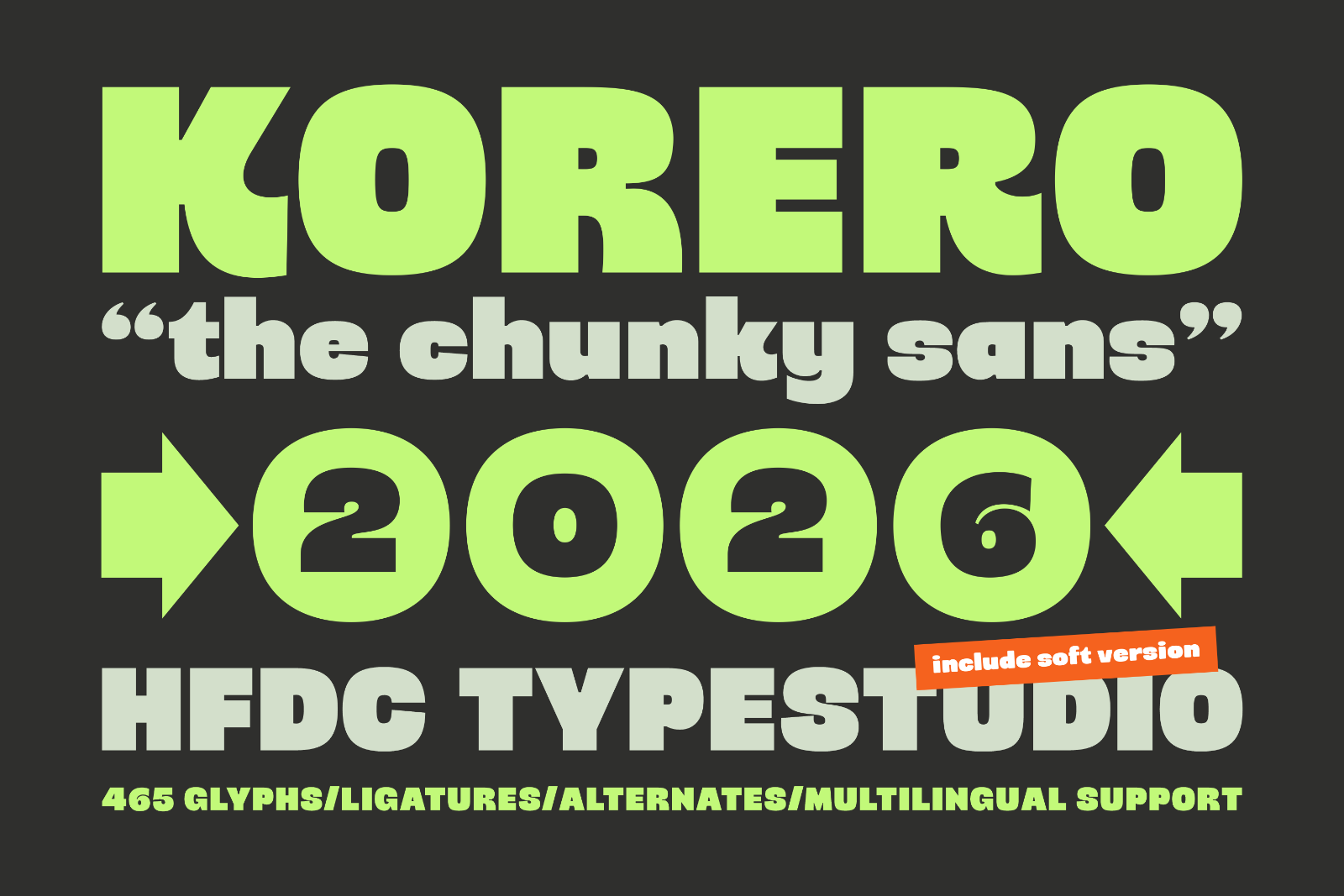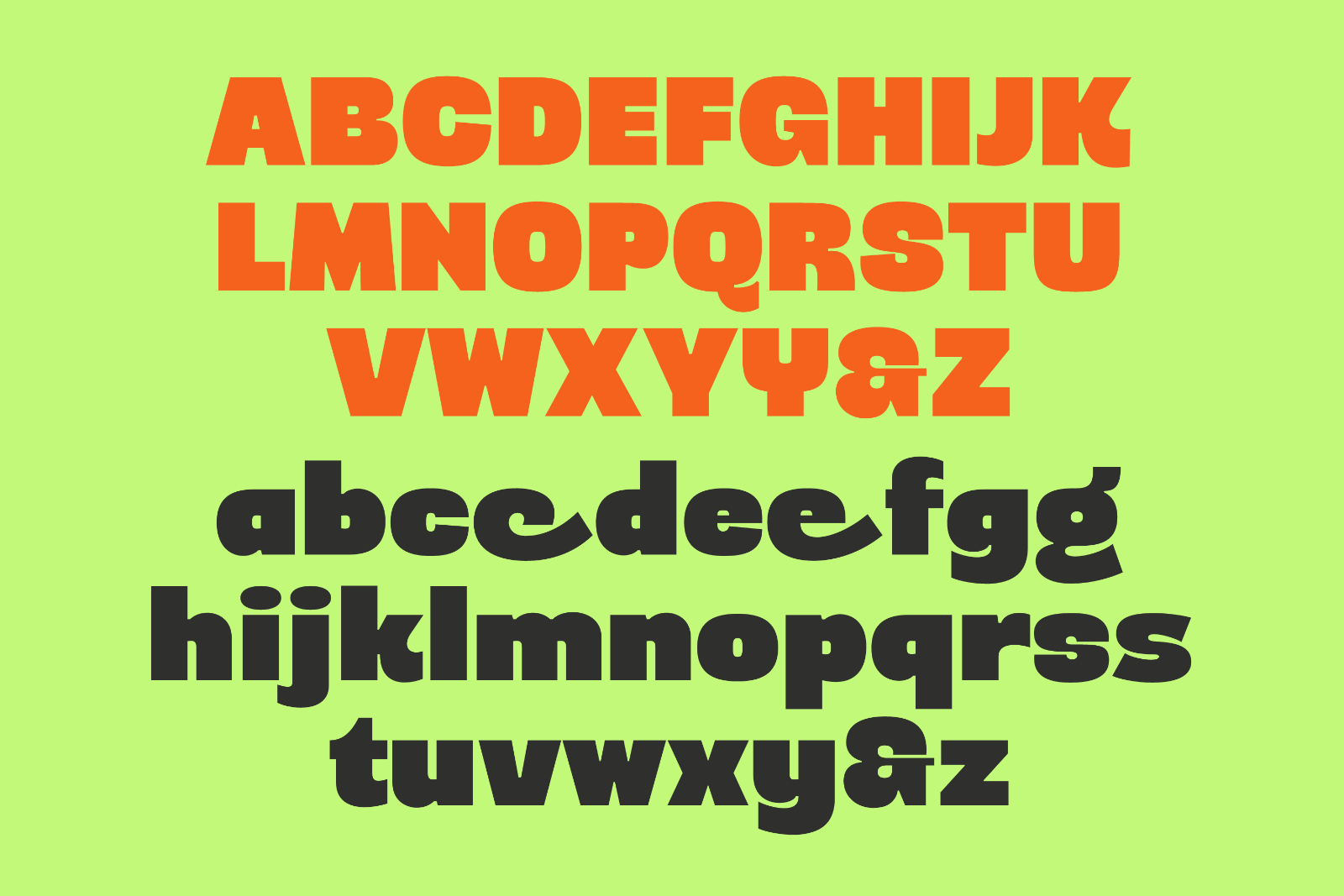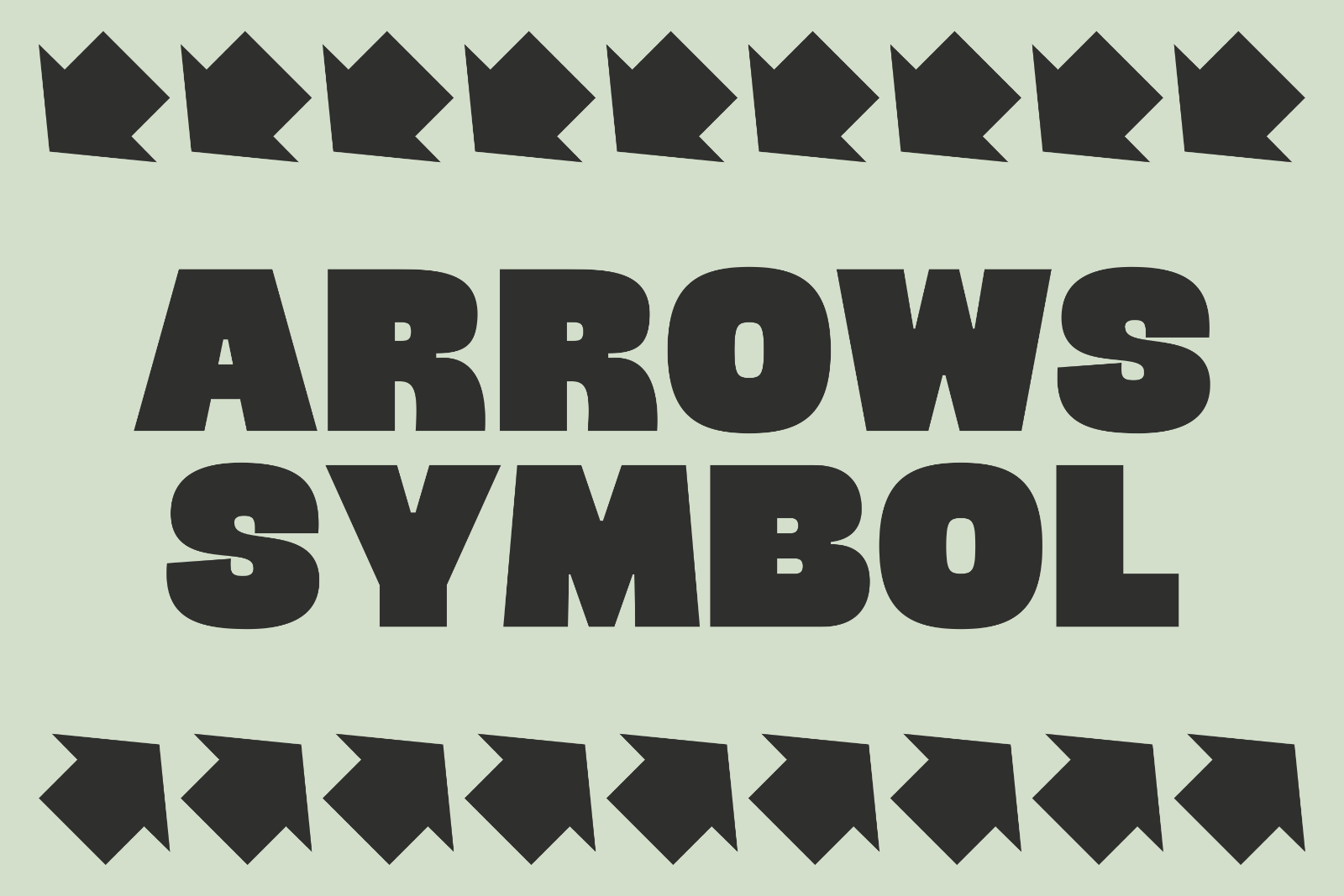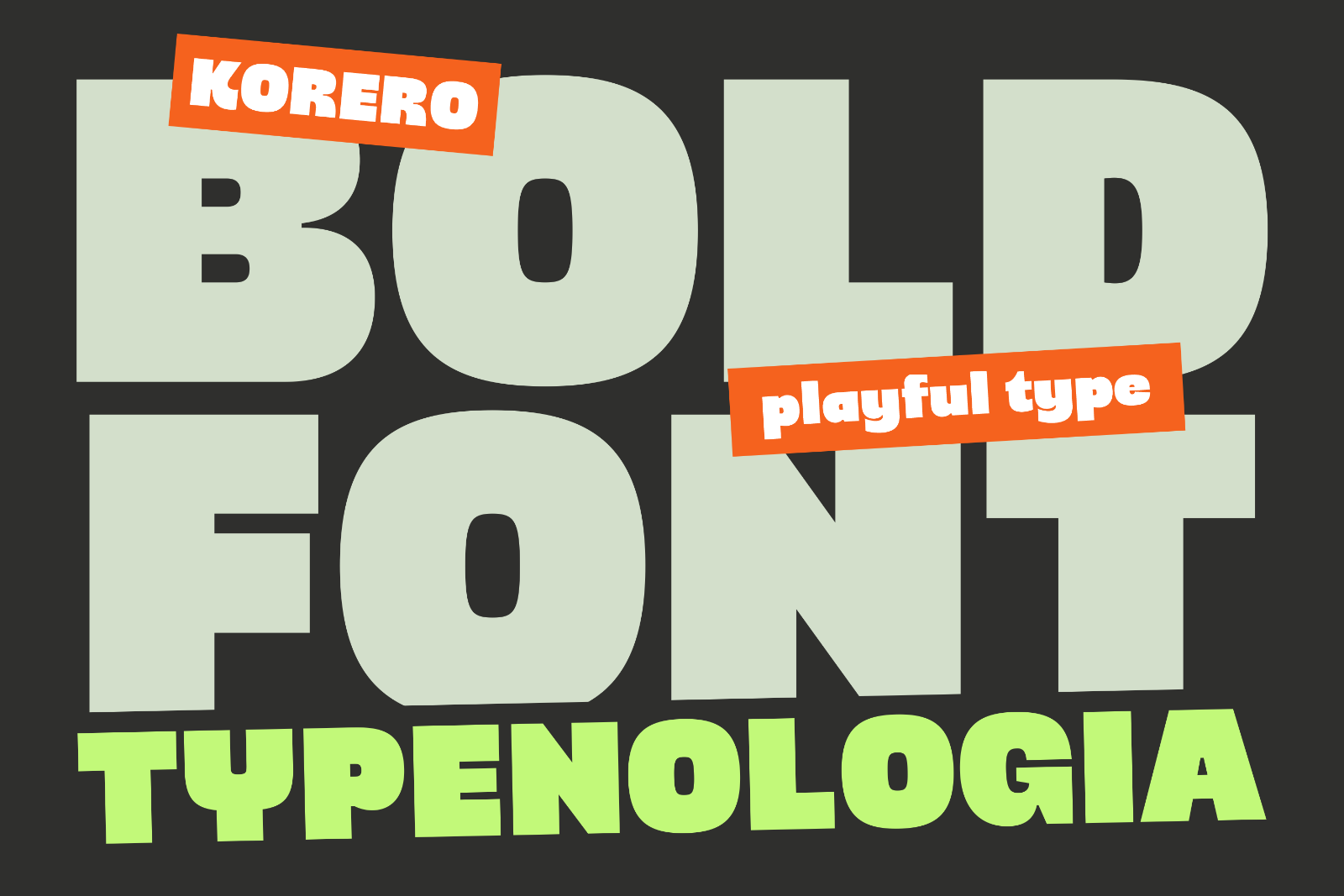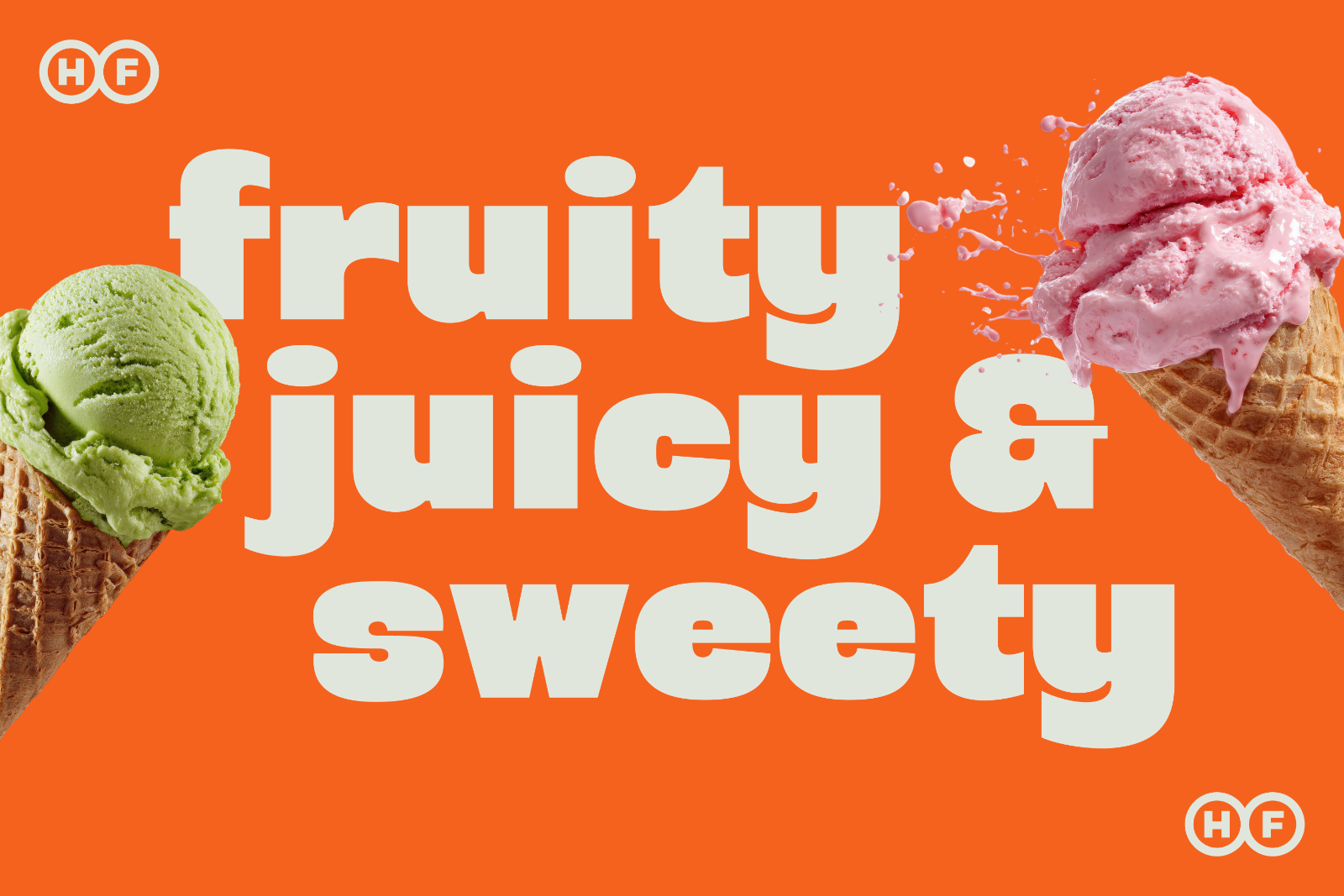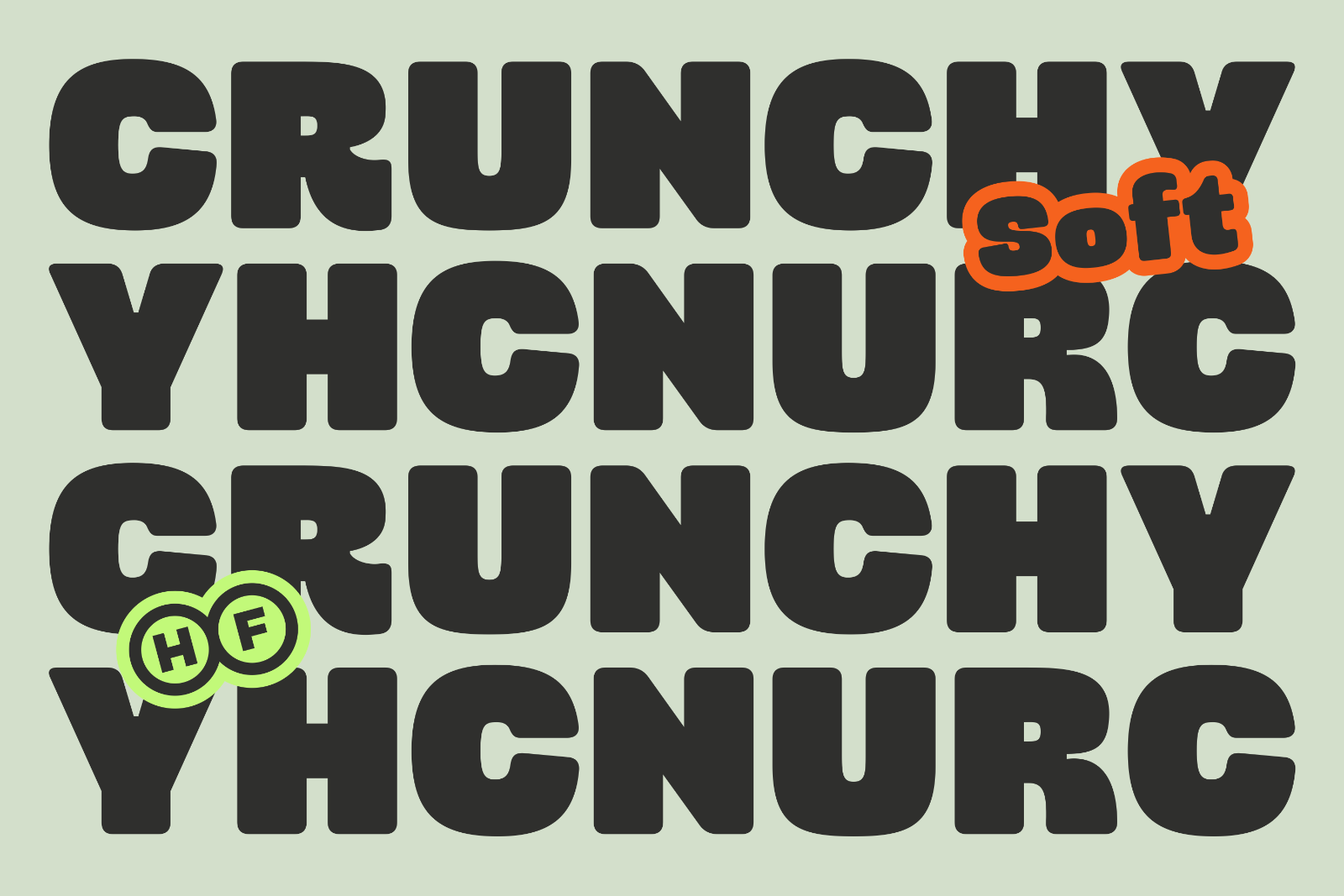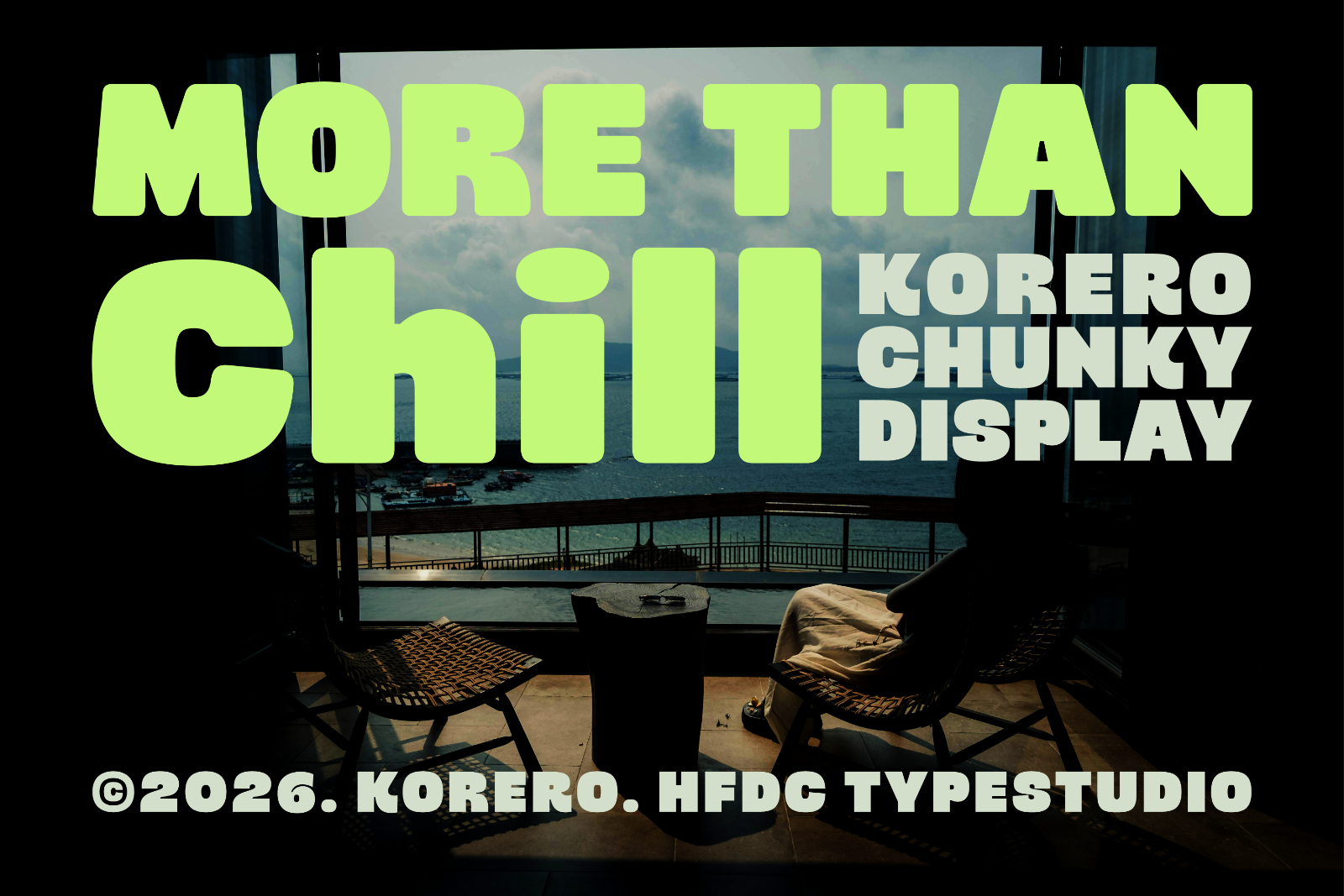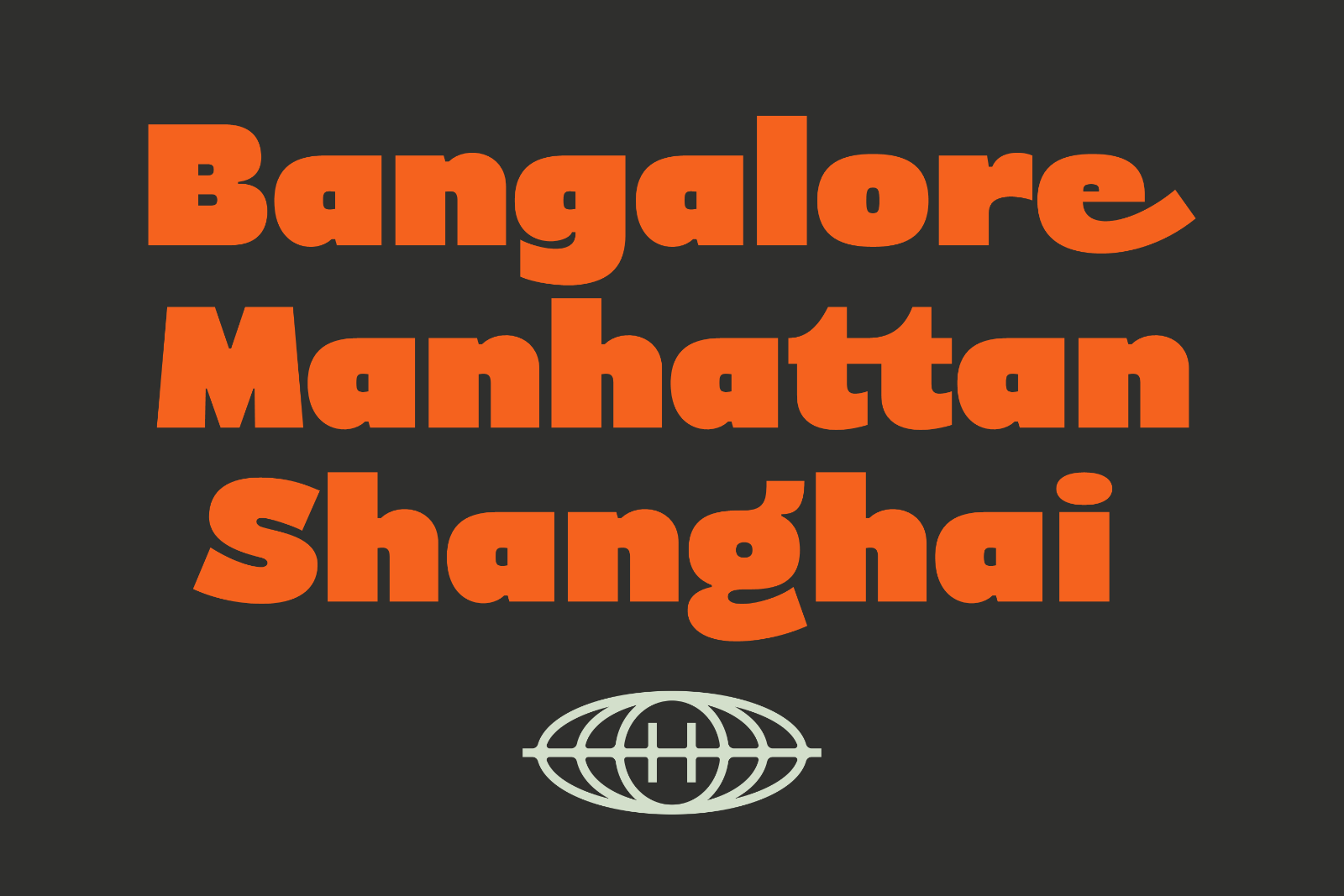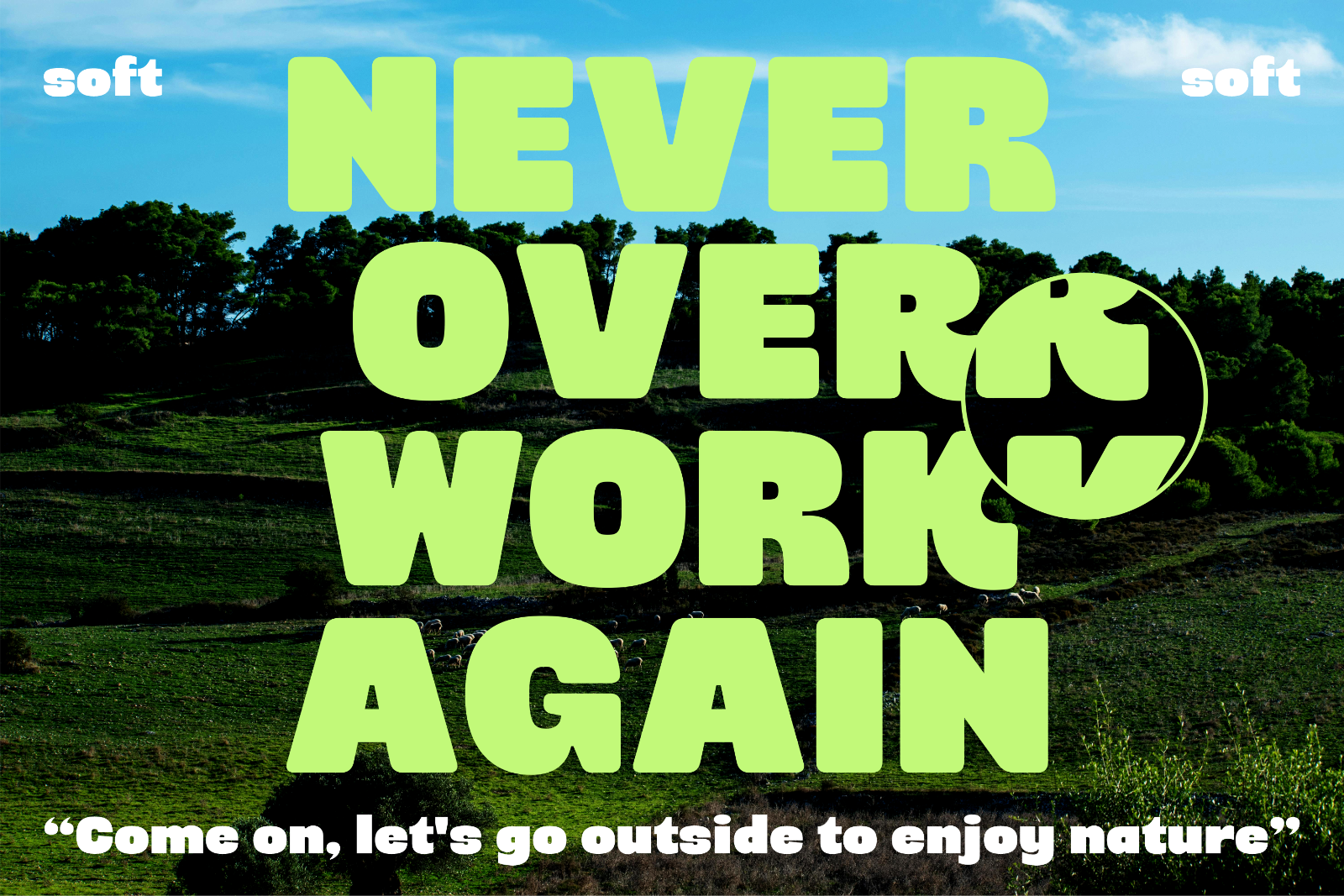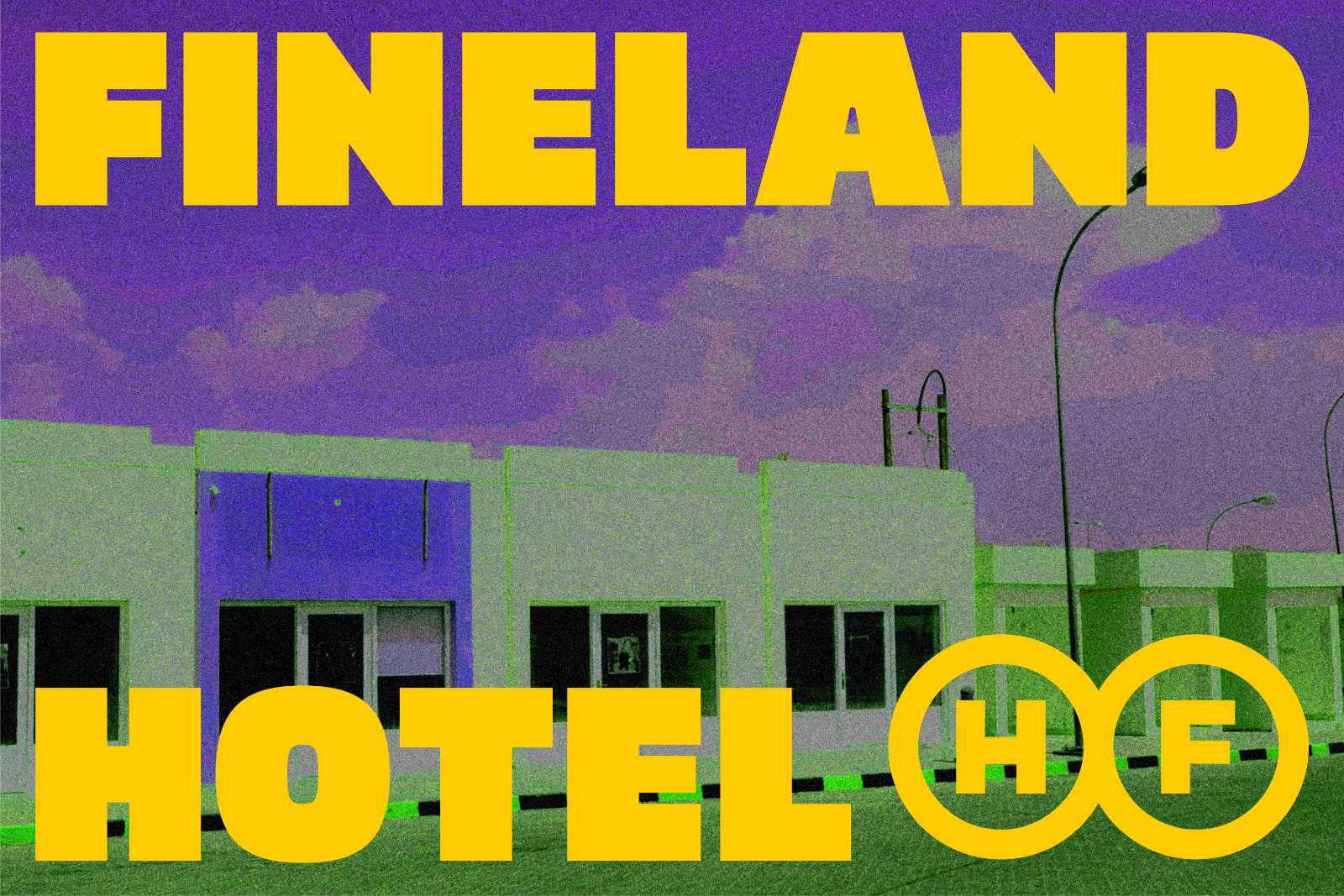
Korero is a bold, display typeface built around thick strokes, tight letterforms, and a confident visual weight. The name draws from the Māori word for “to speak” or “to talk” — and visually, this font does exactly that: it speaks loudly and commands attention at any size.
The family ships in two styles:
Korero Regular carries sharp, squared-off terminals that give it an aggressive, unapologetic presence. Every letterform feels solid and architectural — like it was carved, not drawn. The high stroke weight with minimal internal spacing creates a dense, impactful texture that reads as powerful and direct. This is a font built for headlines, not body copy.
Korero Soft takes the same chunky skeleton but smooths and rounds every corner and terminal. The result is a version that retains all the visual mass and personality of Regular, but wraps it in a warmer, more approachable feeling. It’s expressive without being aggressive — playful without losing authority.
• Numbers + Number Alternates
• Punctuation — standard punctuation and symbols
• Alternates — alternative characters via OpenType
• Ligatures — standard & discretionary